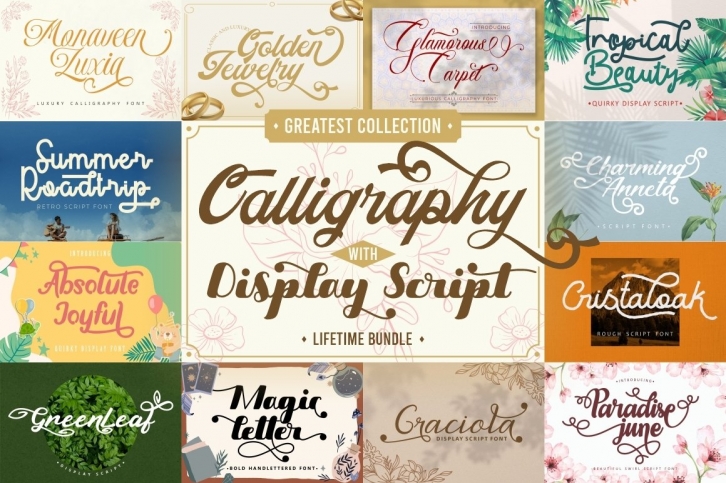
Calligraphy & Display Script Bundle is a trendy and unique font with an authentic style. It was designed by PutraCetol Studio and it's a great choice for creative people who need such a font. It was released on November 16, 2021 and the file size is 8.73 MB. Calligraphy & Display Script Bundle will add an organic vibe to any design idea!